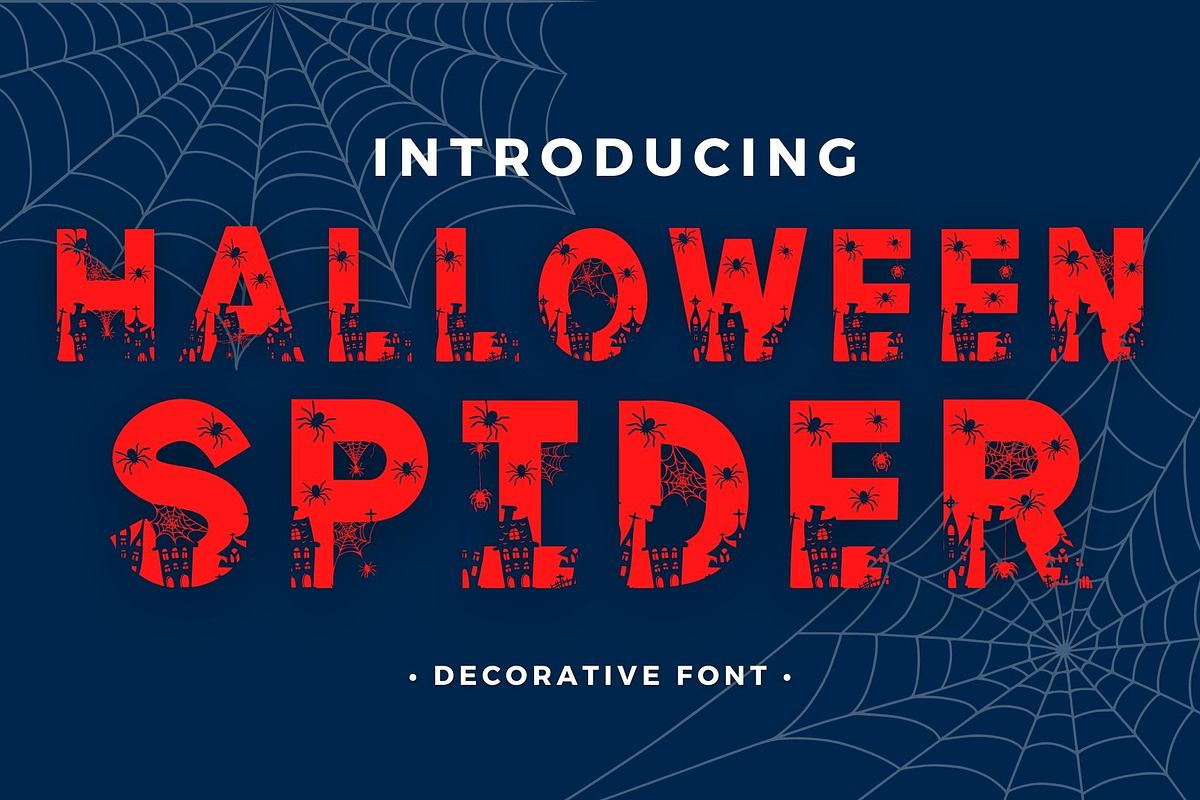
Halloween Spider Font Free Download
Halloween Spider Font Free Download is a spooky and playful typeface designed to add a creepy touch to your Halloween-themed projects. Featuring eerie, spider-like detailing on each letter, this font is perfect for invitations, event posters, spooky decorations, and any design that aims to capture the spooky essence of Halloween.
The Halloween Spider Font's unique, bold design makes it ideal for creating standout titles, logos, or headlines with a fun, haunted atmosphere. Whether you’re designing for a Halloween party, haunted house event, or seasonal branding, this font brings the right amount of spookiness and charm to your typography.